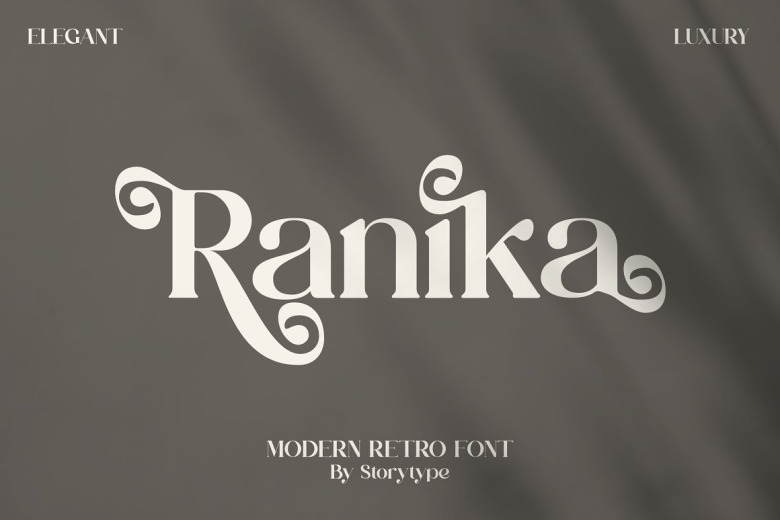
Ranika Font
Ranika Serif Font is a possesses a timeless appeal with its classical serifs yet contemporary posture. Its balanced forms and well-mannered curves lend an aura of prestige appropriate for high-end media.
Ranika Serif Font